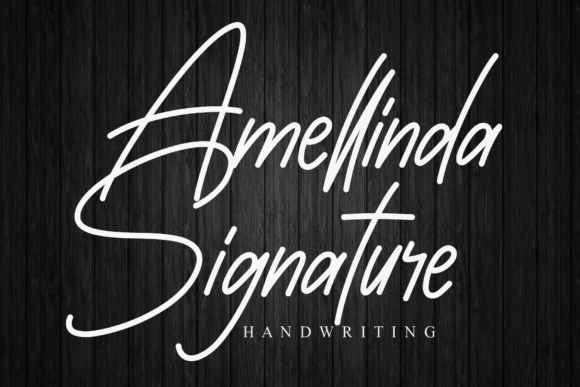
Amellinda Signaturere Font: Elevate Your Designs with a Touch of Elegance
Are you looking for a font that can add a touch of elegance and sophistication to your designs? Look no further than the Amellinda Signaturere font. This beautiful handwritten font is perfect for creative projects, and its thin and delicate lines make it a versatile choice for a wide range of applications.
What is Amellinda Signaturere Font?
Amellinda Signaturere is a thin and beautiful handwritten font that is designed to add a personal touch to your designs. Its elegant and cursive lines make it perfect for use in a variety of creative projects, from branding and advertising to packaging and web design.
The font is characterized by its delicate and refined lines, which give it a sophisticated and high-end feel. Whether you’re looking to create a luxurious brand identity or simply want to add a touch of elegance to your designs, Amellinda Signaturere is a great choice.
Key Features of Amellinda Signaturere Font
- Thin and delicate lines: The font’s thin and delicate lines make it perfect for use in designs where a touch of elegance is desired.
- Handwritten style: The font’s handwritten style gives it a personal and unique feel that is perfect for creative projects.
- Versatile: The font is versatile and can be used in a wide range of applications, from branding and advertising to packaging and web design.
- Elegant and sophisticated: The font’s elegant and sophisticated lines make it perfect for use in designs where a high-end feel is desired.
Creative Ways to Use Amellinda Signaturere Font
Amellinda Signaturere is a versatile font that can be used in a wide range of creative projects. Here are some ideas to get you started:
- Branding and advertising: Use Amellinda Signaturere to create a luxurious brand identity that stands out from the crowd.
- Packaging design: Add a touch of elegance to your packaging designs with Amellinda Signaturere.
- Web design: Use Amellinda Signaturere to create a sophisticated and elegant website that reflects your brand’s personality.
- Stationery and invitations: Use Amellinda Signaturere to create beautiful stationery and invitations that make a lasting impression.
Tips and Tricks for Using Amellinda Signaturere Font
Here are some tips and tricks for using Amellinda Signaturere font:
- Use it sparingly: Amellinda Signaturere is a elegant and sophisticated font, so use it sparingly to avoid overwhelming your design.
- Pair it with a sans-serif font: Pair Amellinda Signaturere with a sans-serif font to create a beautiful contrast that adds visual interest to your design.
- Experiment with font sizes: Experiment with different font sizes to create a hierarchy of information that guides the viewer’s eye.
- Use it in combination with images: Use Amellinda Signaturere in combination with images to create a beautiful and elegant design that tells a story.
In conclusion, Amellinda Signaturere font is a beautiful and elegant handwritten font that is perfect for creative projects. Its thin and delicate lines make it a versatile choice for a wide range of applications, from branding and advertising to packaging and web design.